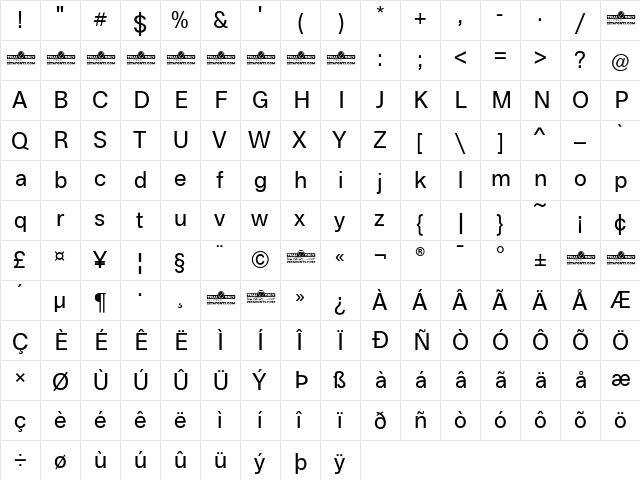
Boring Sans A Trial Regular
| Foundry | Zetafonts |
| Designer | Cosimo Lorenzo Pancini |
Design Context for Boring Sans A Trial Typeface
Boring Sans A Trial is a composed and adaptable typeface that performs quietly and consistently across a wide range of design contexts.